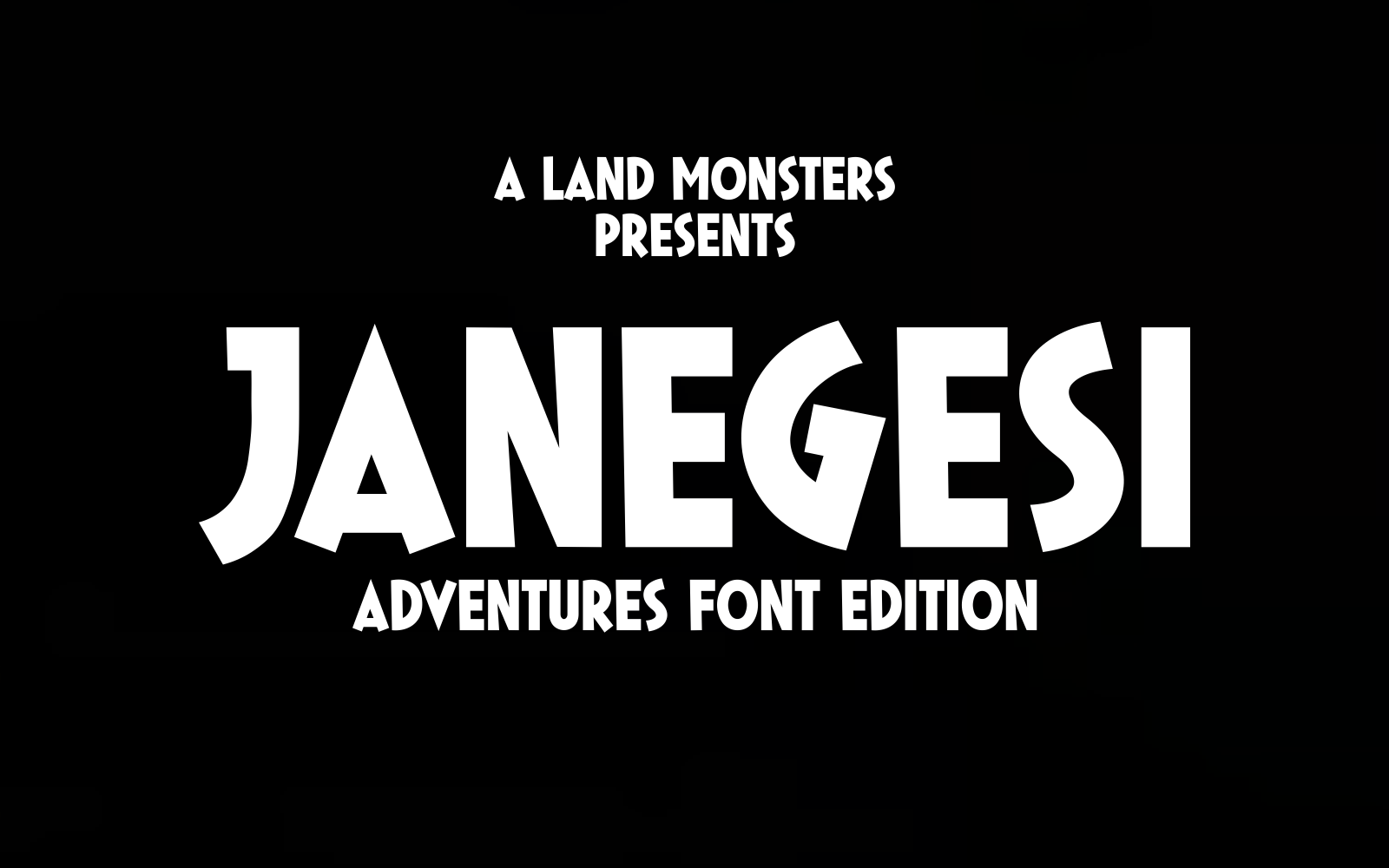
JANEGESI Font | Japanese Abstract Adventure Typeface
JANEGESI is a unique display font that merges abstract design elements with traditional Japanese aesthetics. Its bold strokes and fluid curves create a modern yet cultural impression, perfect for projects seeking both elegance and impact. Ideal for adventure themes, posters, branding, logos, apparel, and more, JANEGESI brings a striking visual identity to any creative work. Available in .OTF and .TTF formats, it’s both versatile and memorable—perfect for bold design statements.